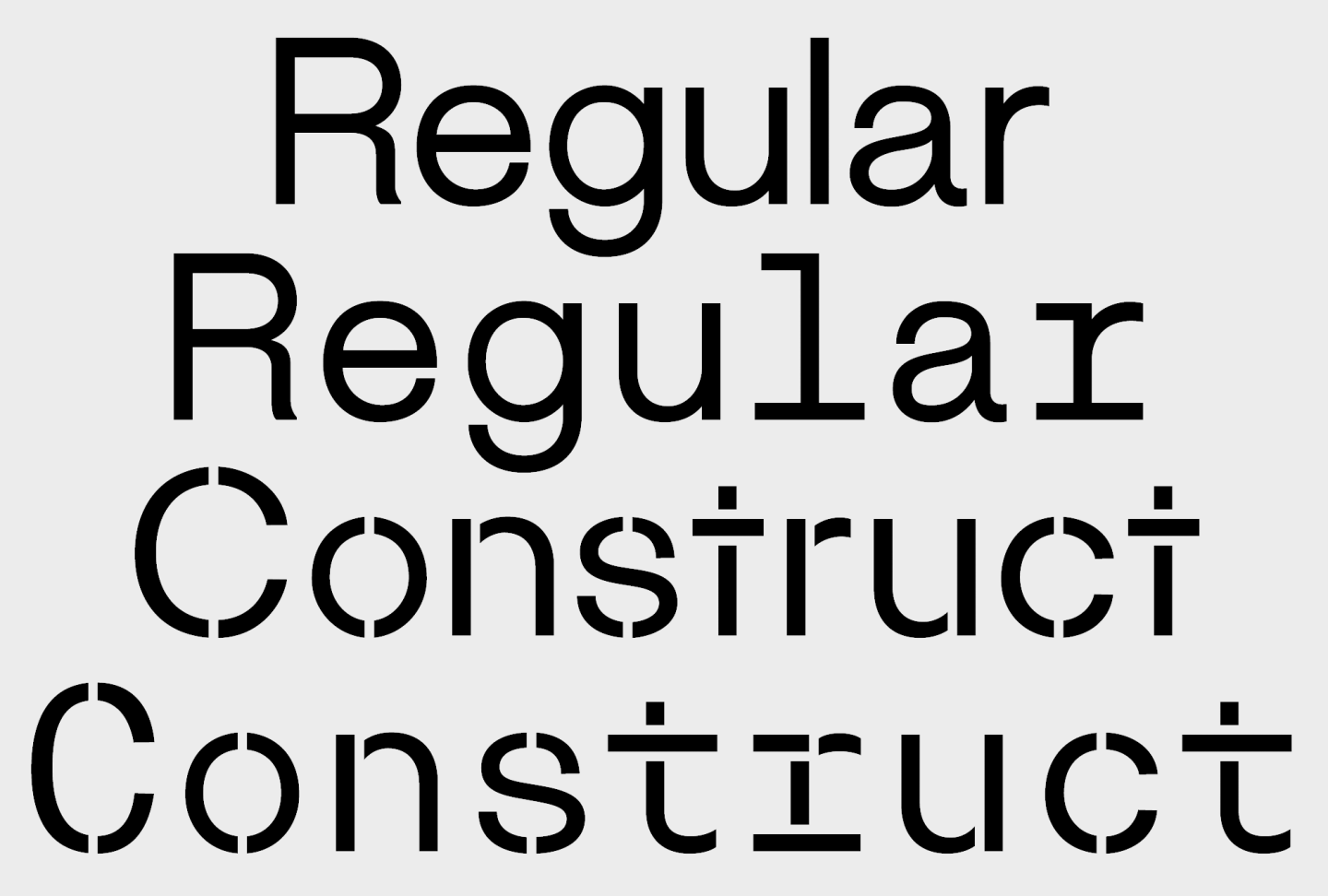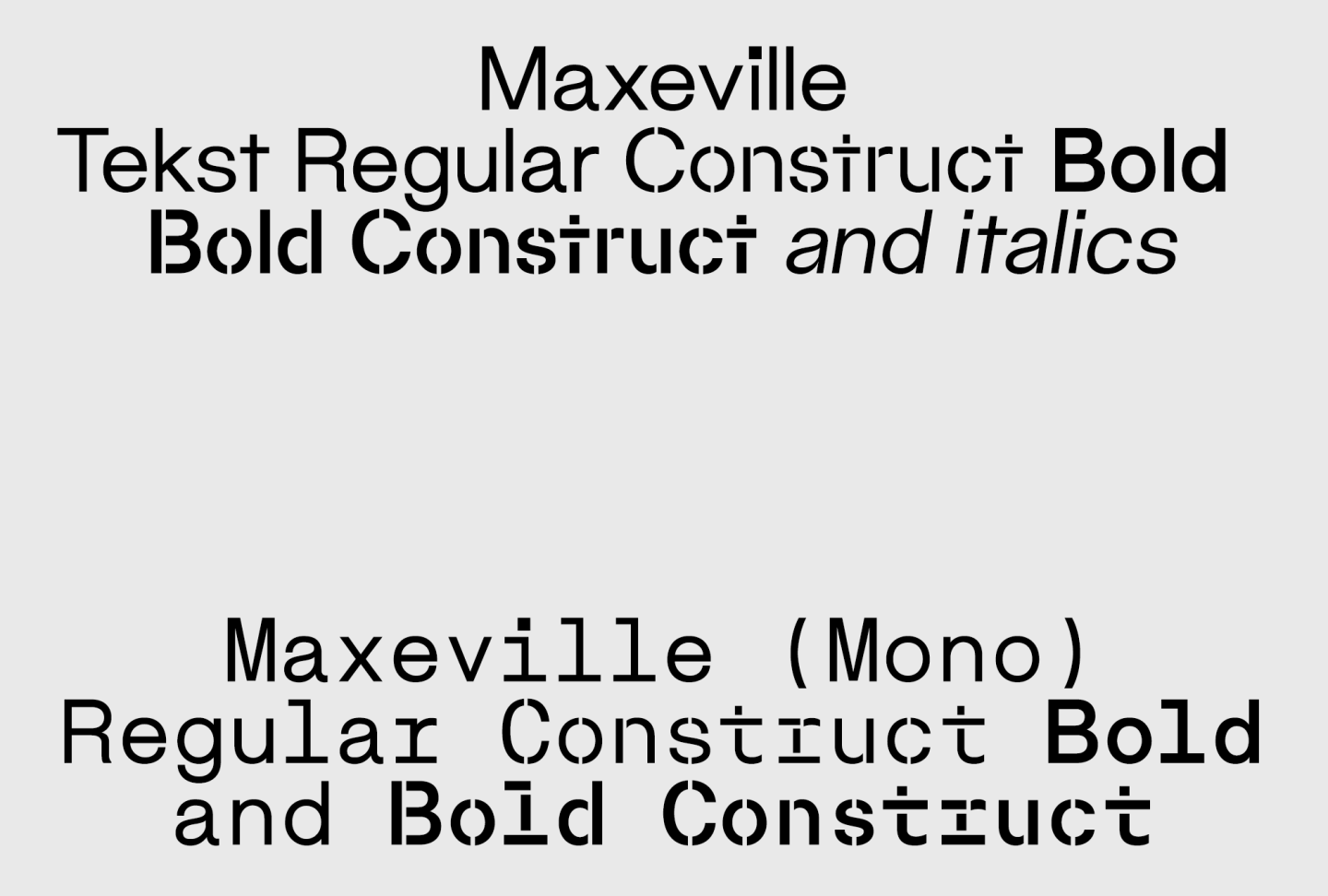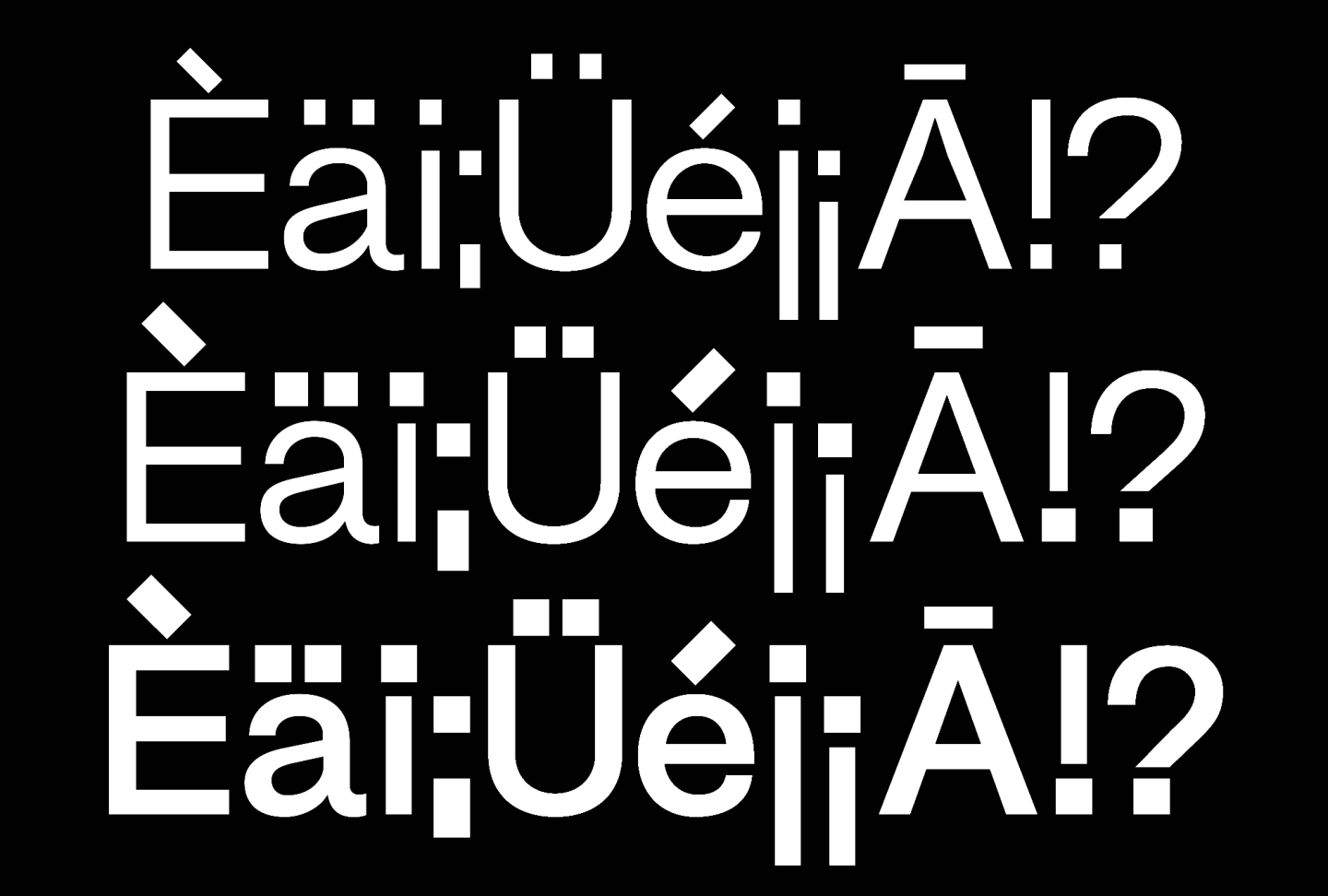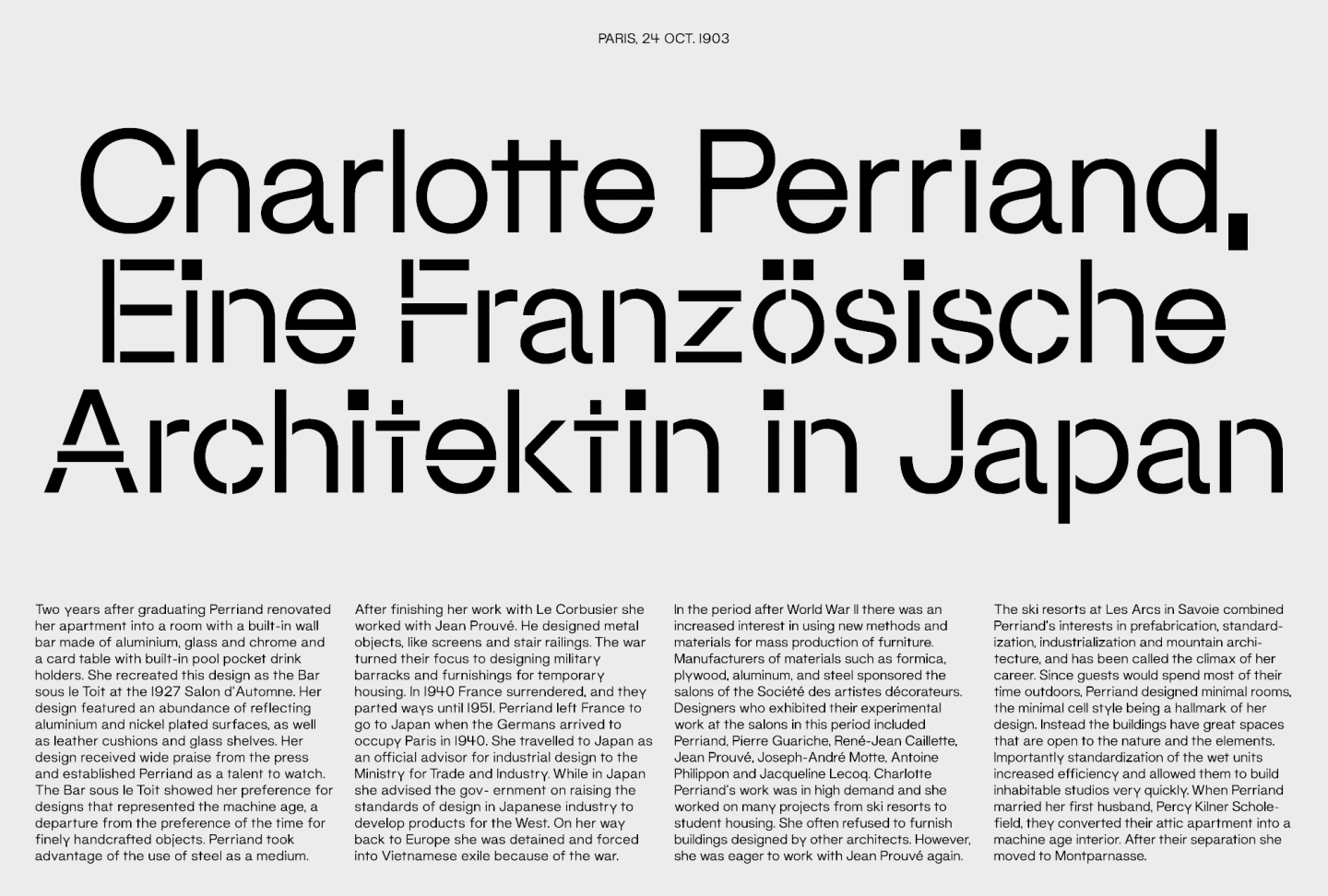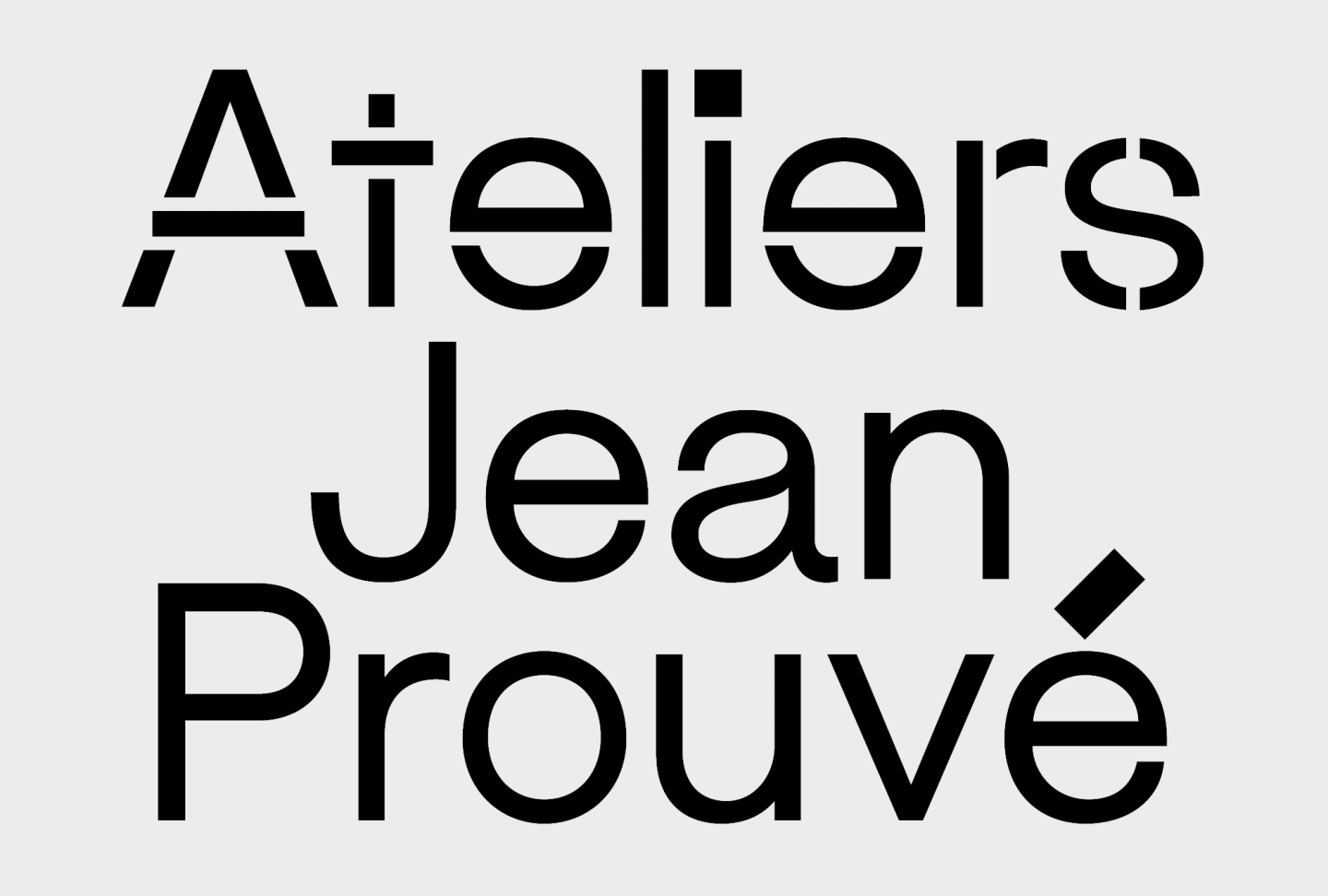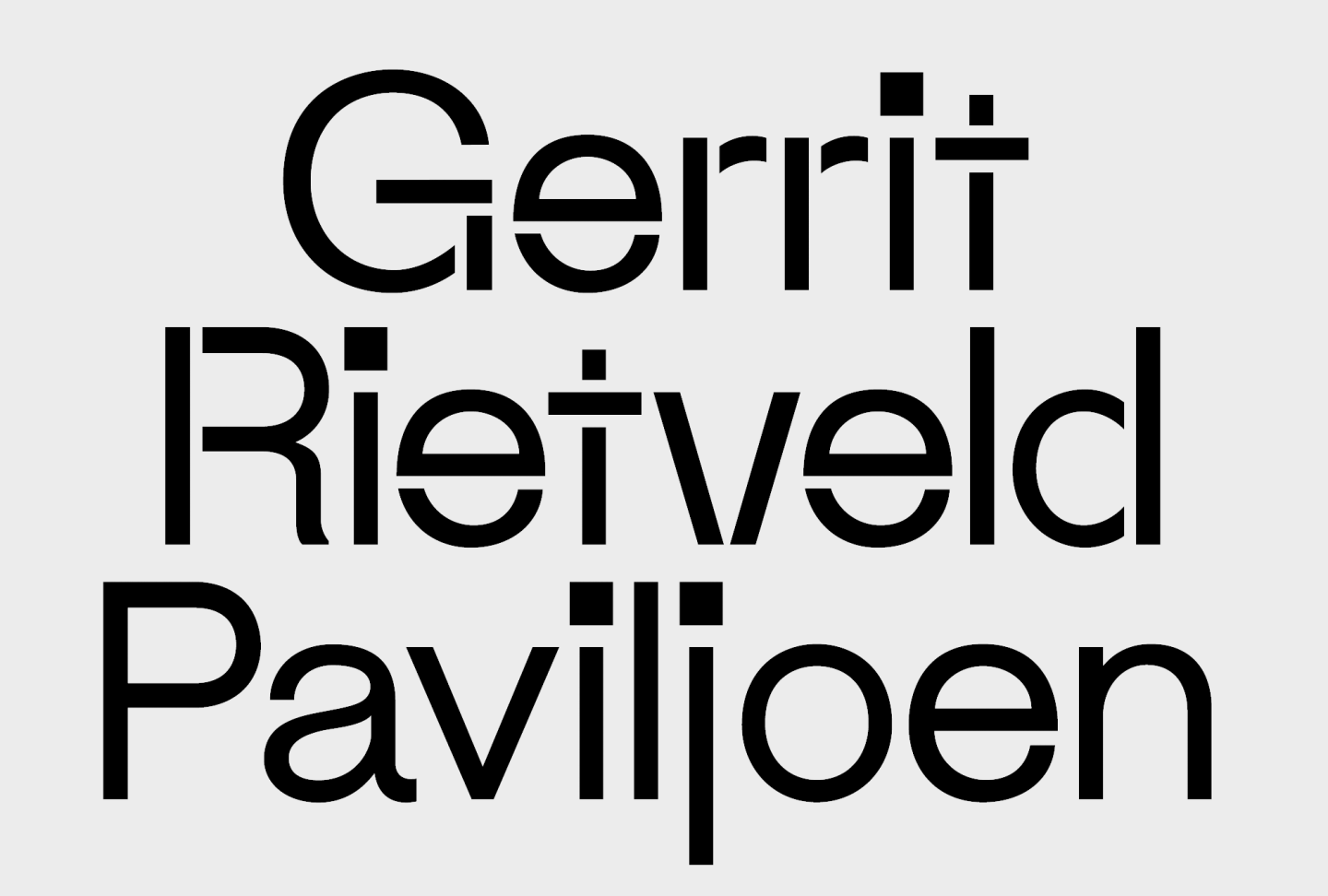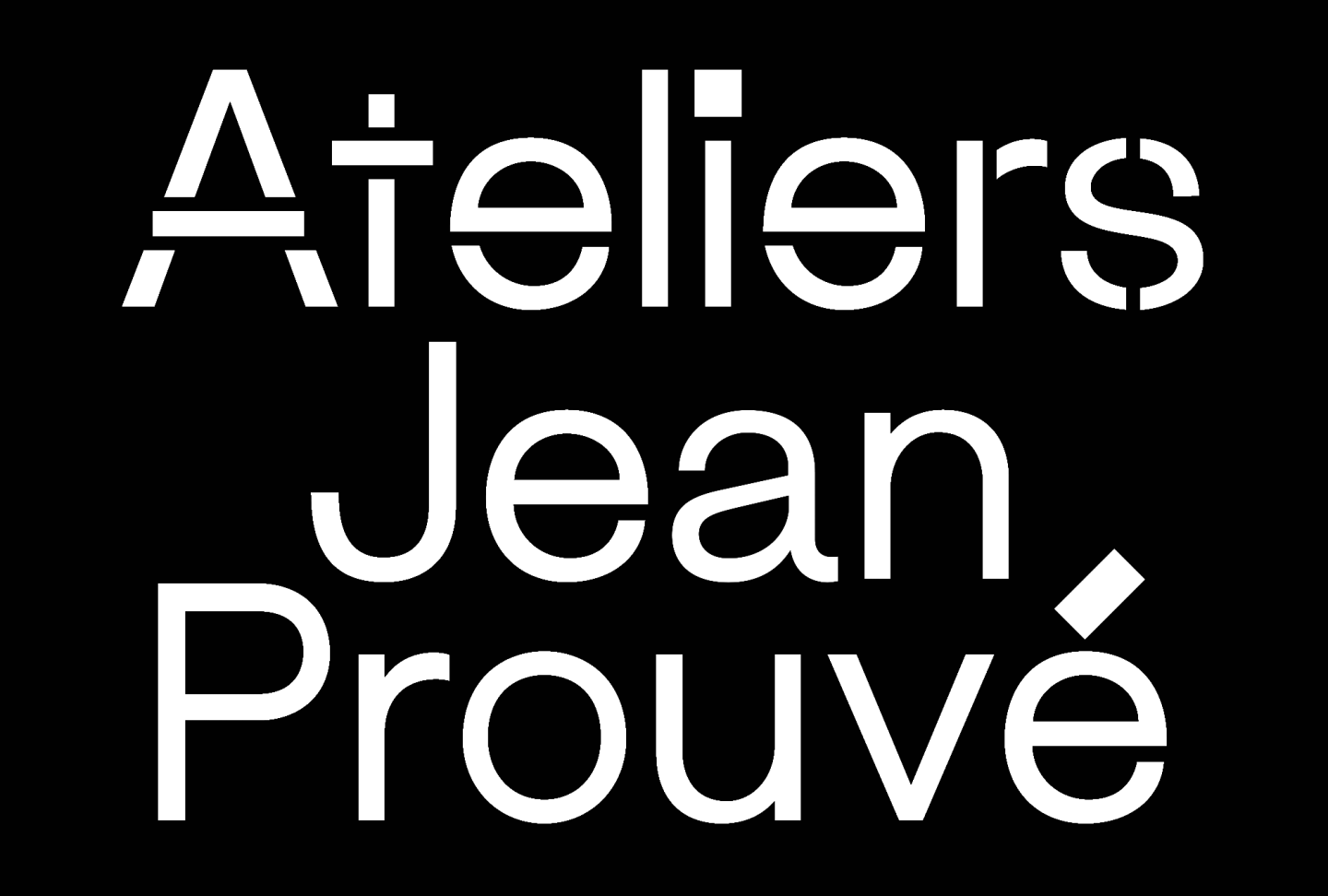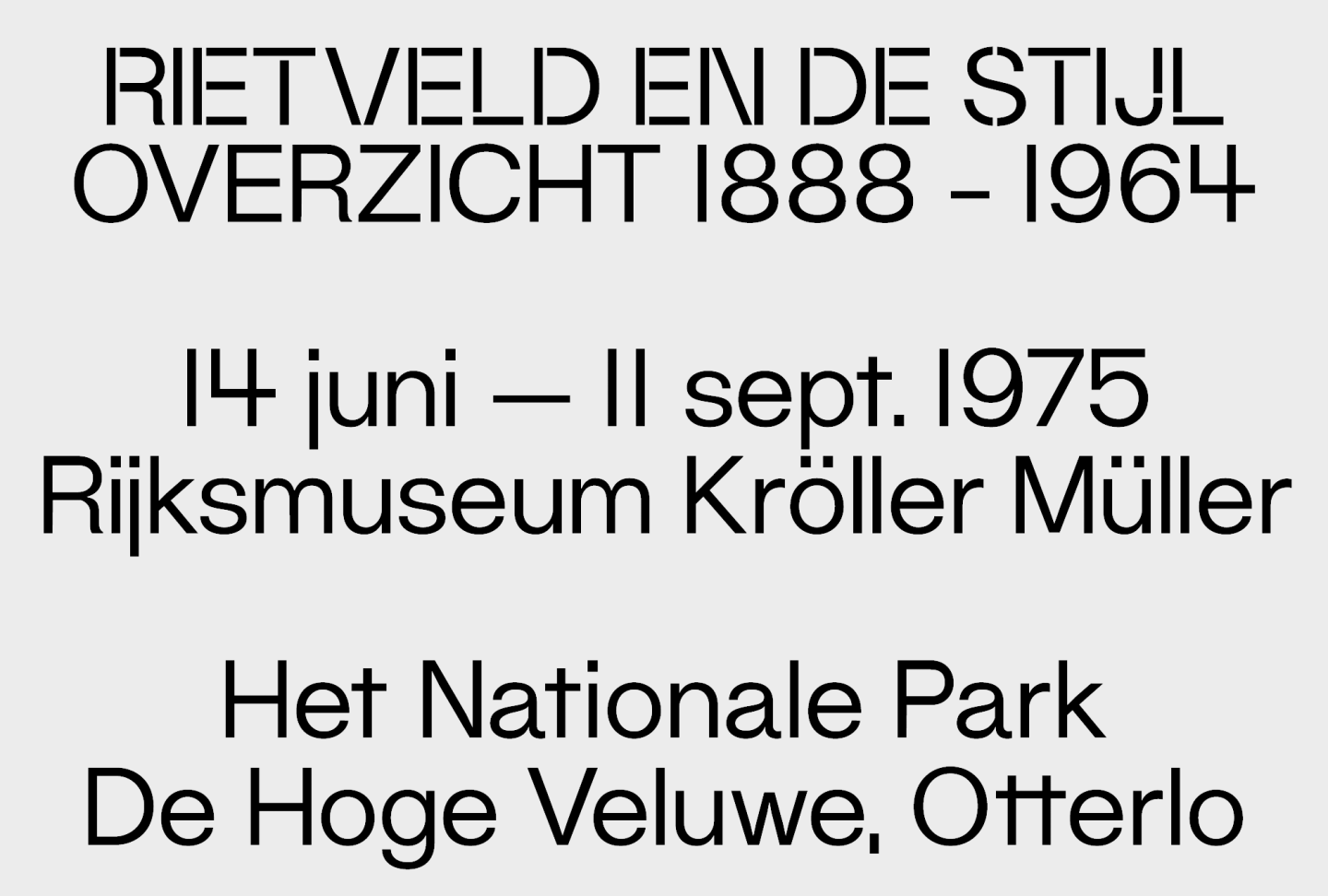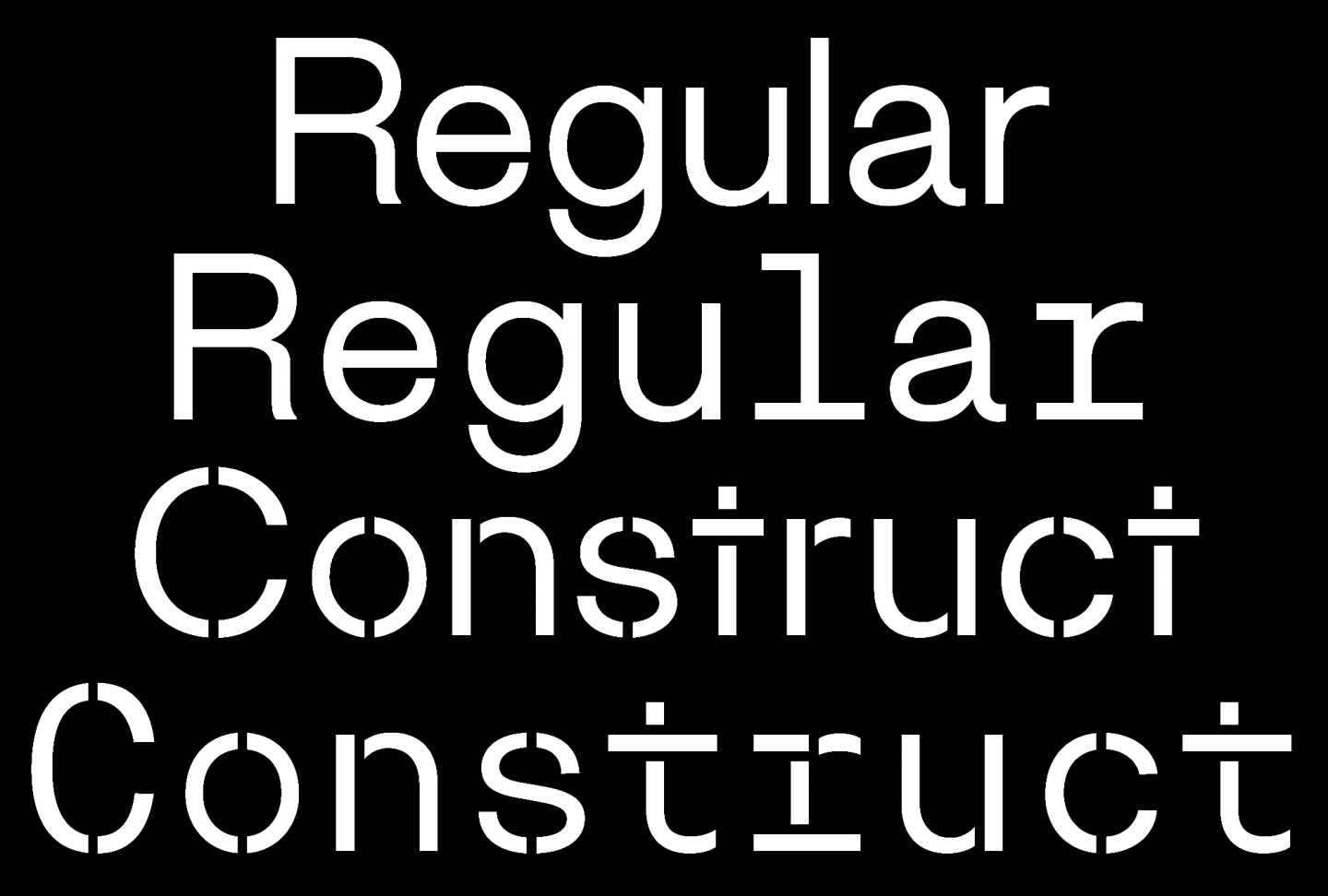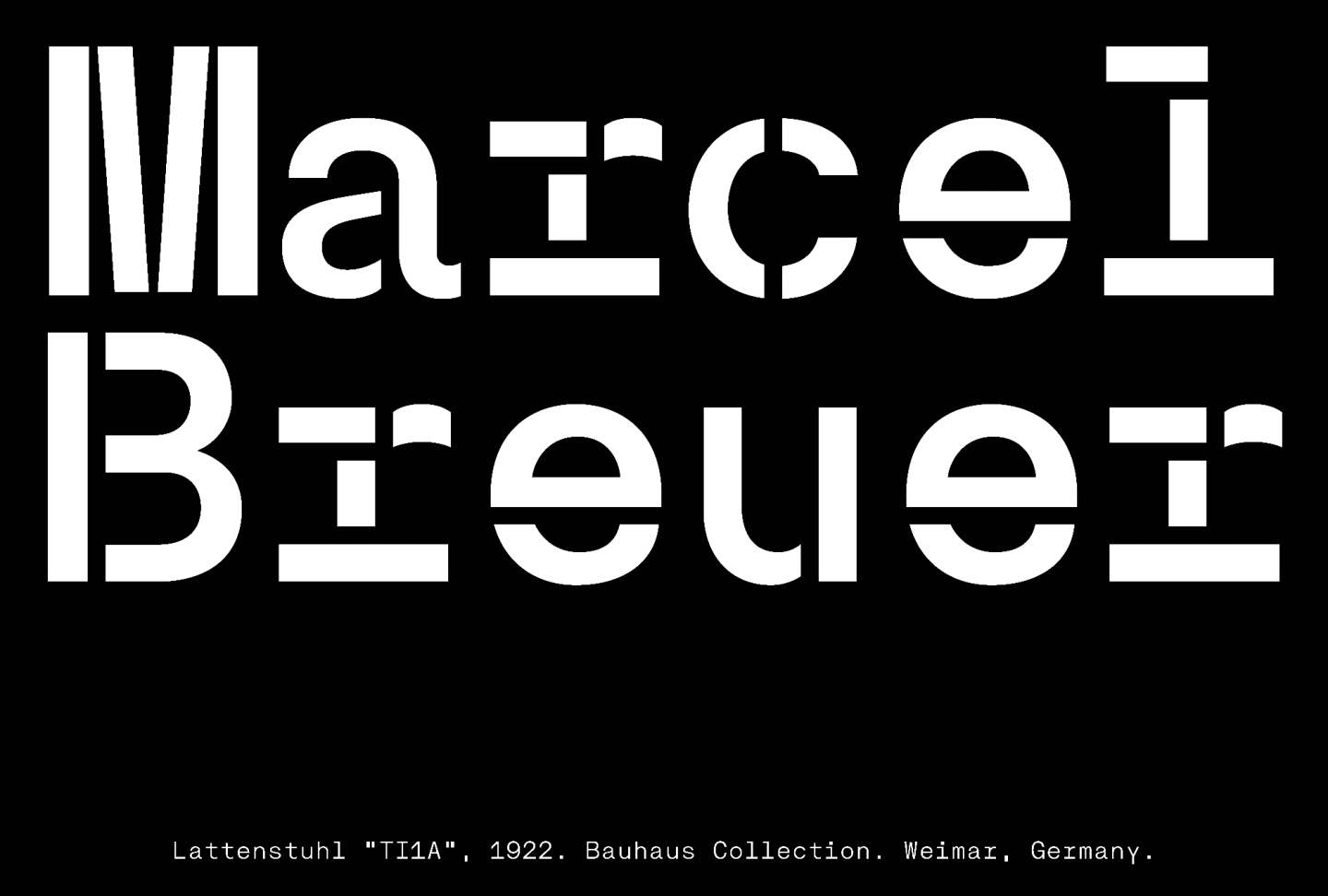
Maxeville is a neo-grotesk typeface with geometric properties, inspired by the visual language that accompanied art and design movements from the early 20th century, such as De Stijl (The Netherlands) and Union des Artistes Modernes (France). Concentrating on the work of Gerrit Rietveld and Jean Prouvé.
Sans-Serif. Original Release 2017
Designer Mark Niemeijer
Maxeville
Maxeville is a neo-grotesk typeface with geometric properties. Its characters are designed to appear constructed, rather than cut. Not all characters are assembled from open shapes, like stenciled typefaces. Inspired by the visual language that accompanied European art and design movements from the early 20th century.